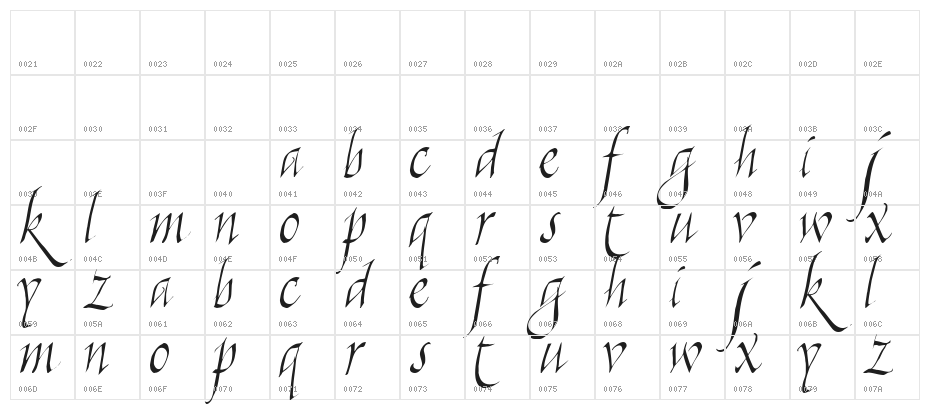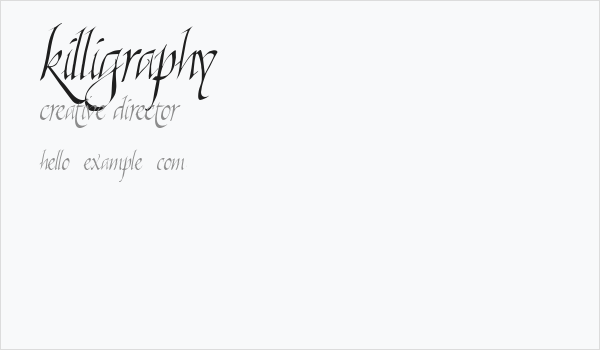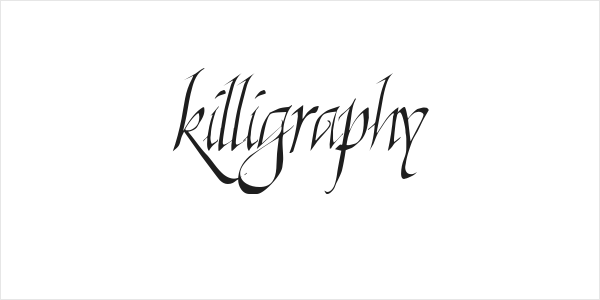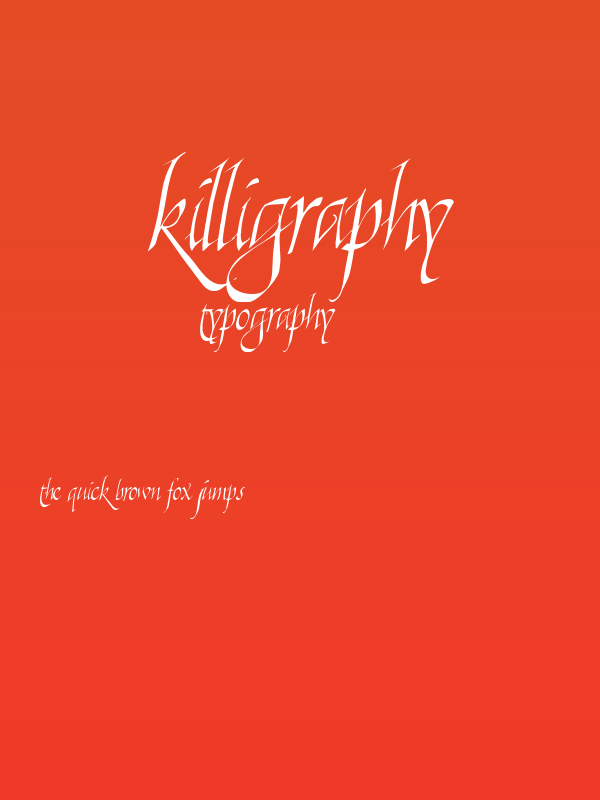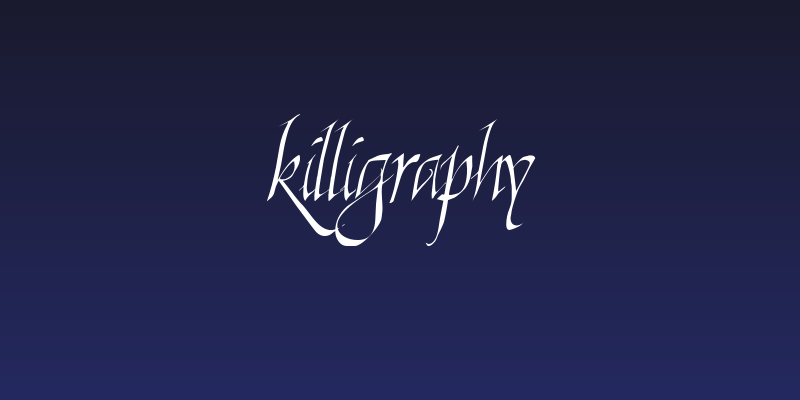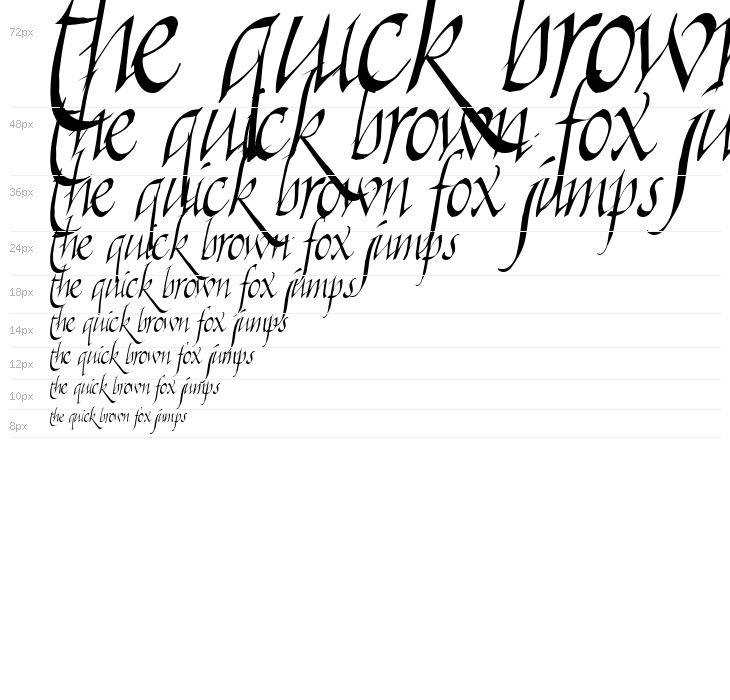
Killigraphy Font
Killigraphy Description
This font exhibits a dynamic and expressive style, characterized by its sharp, angular strokes and fluid, sweeping lines. The letters are crafted with a high degree of contrast, featuring thick downstrokes and thin upstrokes, which create a dramatic and elegant appearance. The overall design is reminiscent of traditional calligraphy, yet it incorporates modern elements that give it a unique, edgy flair. The characters are slightly condensed, enhancing the font's bold and striking presence. This font is ideal for projects that require a touch of sophistication and artistic flair, such as invitations, branding, and editorial design.
| Proposed Projects | Ideal for invitations, branding, editorial design, and artistic projects. |